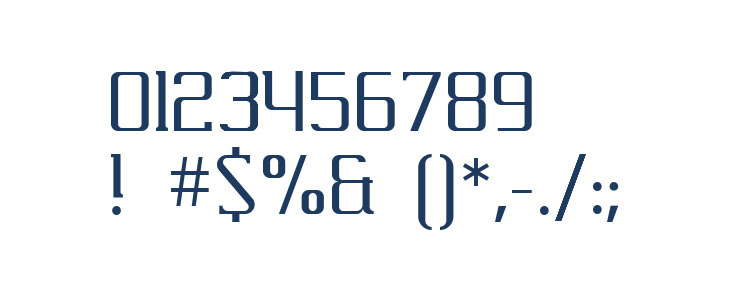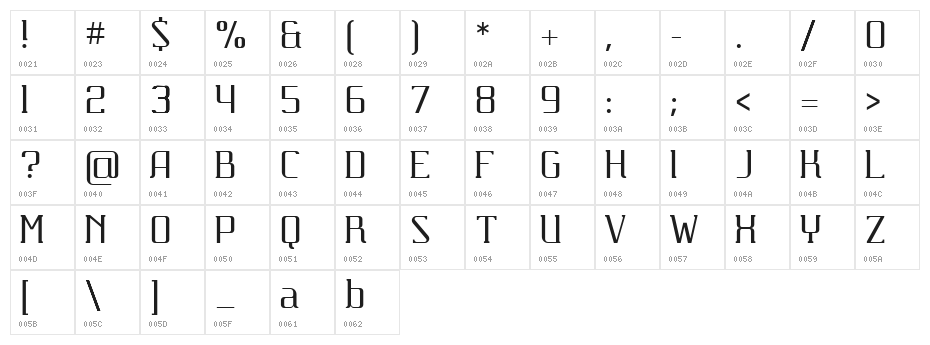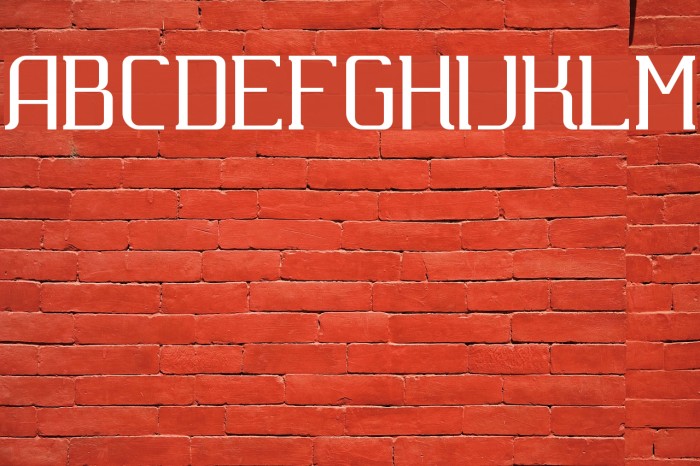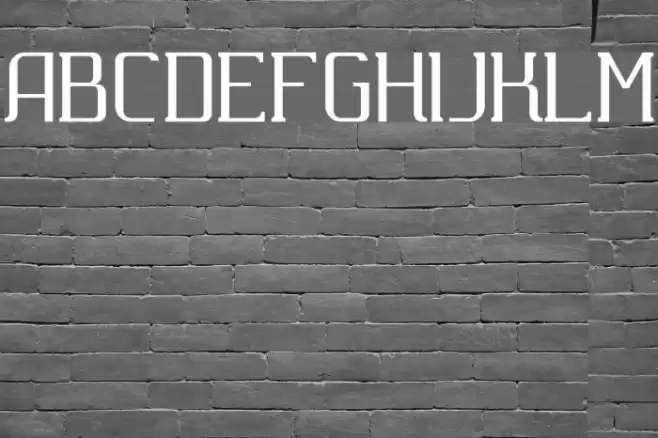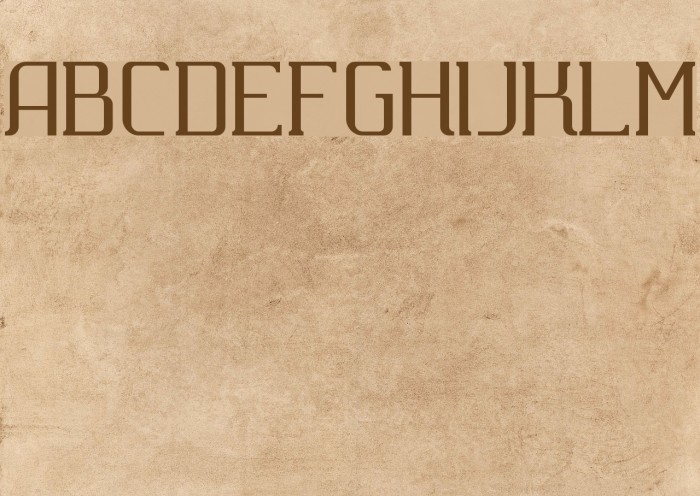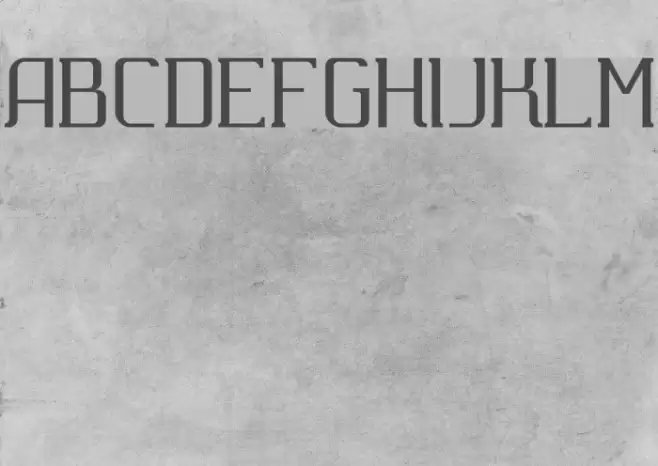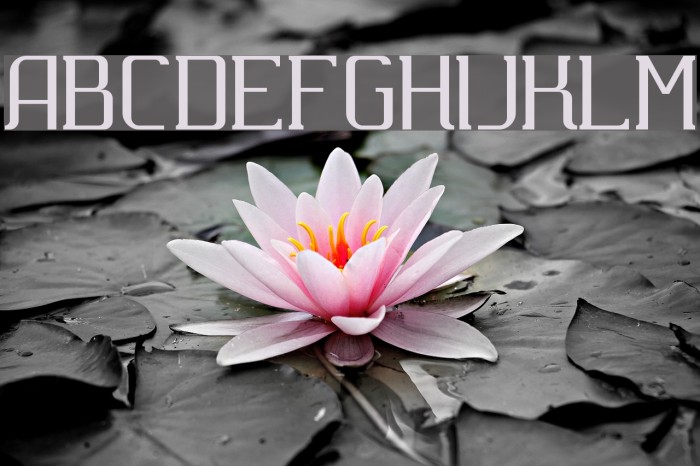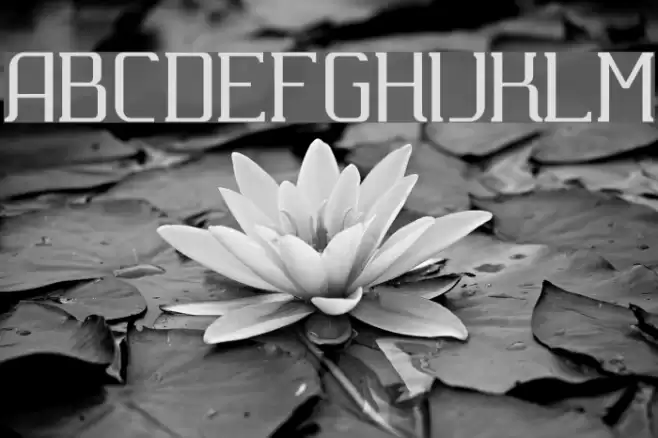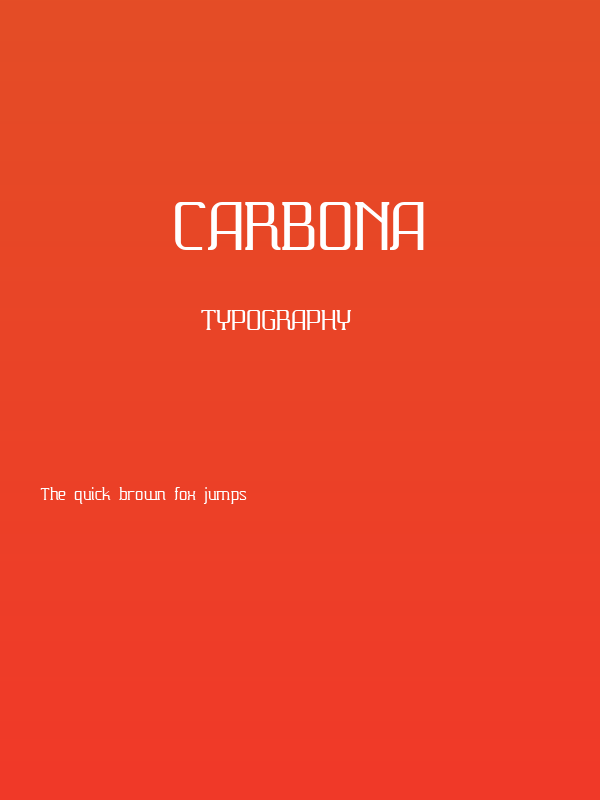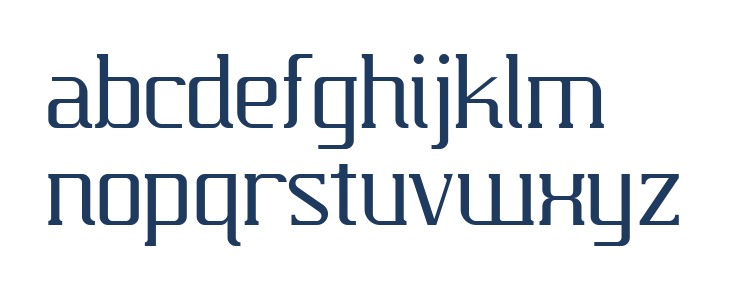
Carbona Font
Carbona Description
This font features a modern and sleek design with a geometric structure. The characters are uniform in width, giving it a monospaced appearance, yet they maintain a unique flair with subtle curves and angles. The uppercase letters are bold and assertive, while the lowercase letters complement them with a slightly softer touch. Numbers and special characters are designed with the same precision, ensuring consistency across all elements. The font's clean lines and balanced proportions make it versatile for various design applications.
| Proposed Projects | Ideal for tech branding, digital interfaces, coding environments, and modern editorial layouts. |